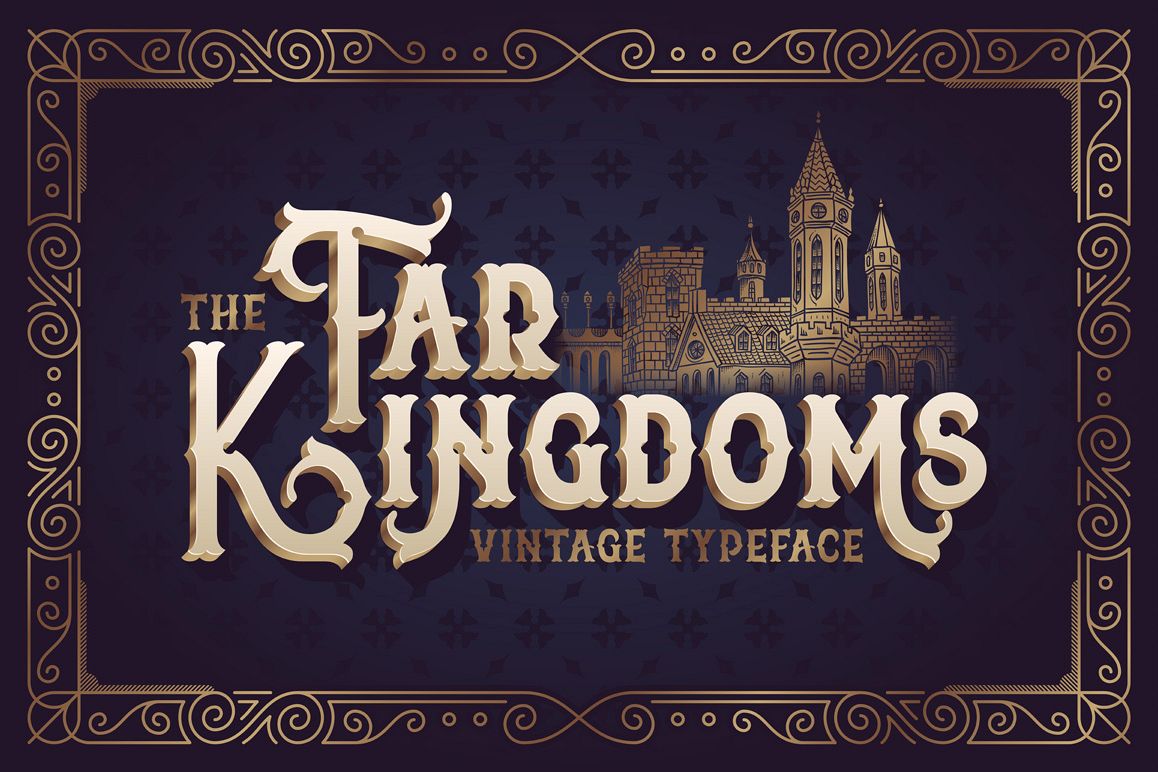
Hello! Presenting the Far Kingdoms
vintage typeface. It comes with lots of bonus graphics, including a
castle illustration, decorative frame and vector graphic style for
illustrator. Also this font has an OpenType features, such as stylistic
alternates (5th screenshot).
Note: This font contains only latin characters (all available characters you can see on 3rd screenshot)